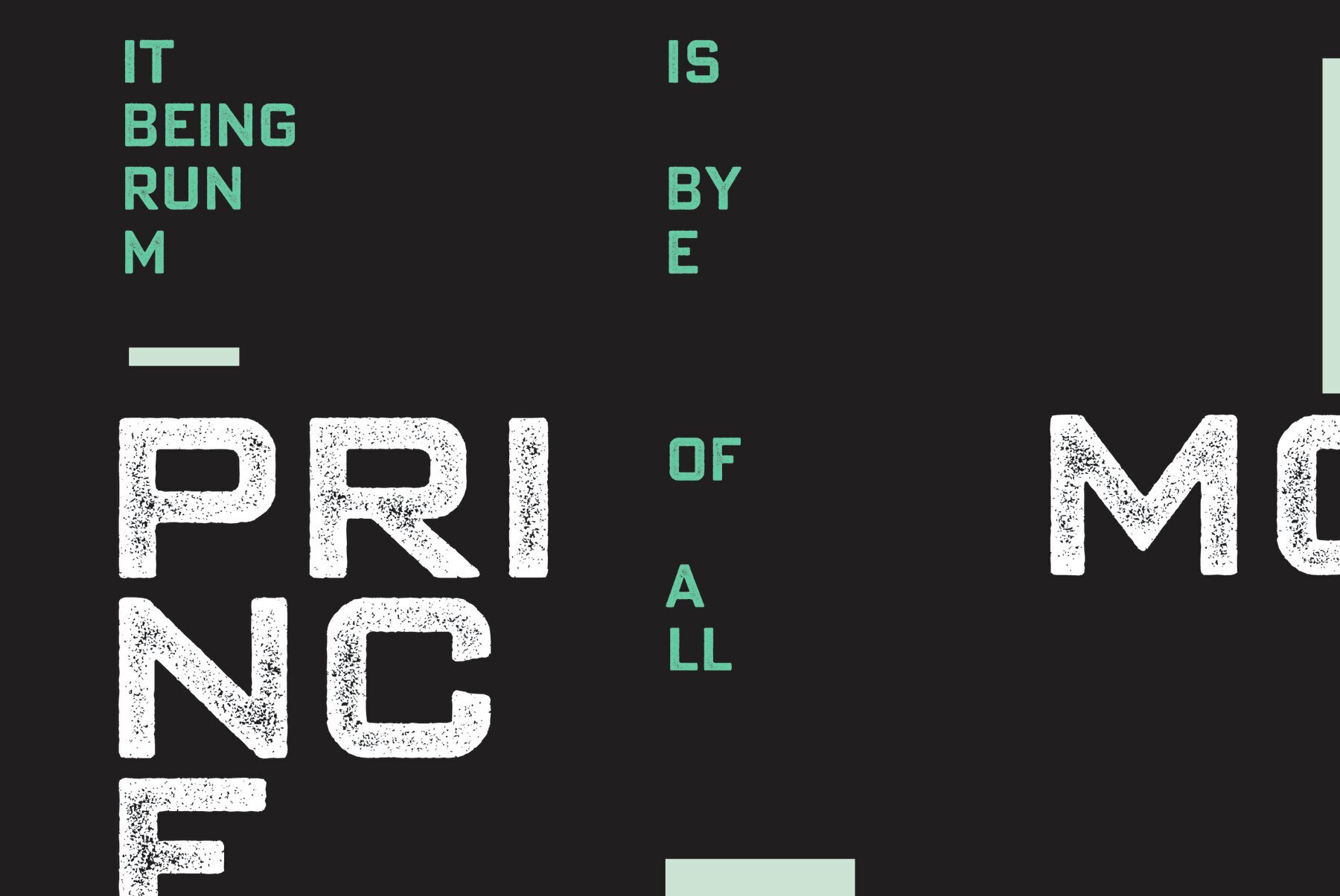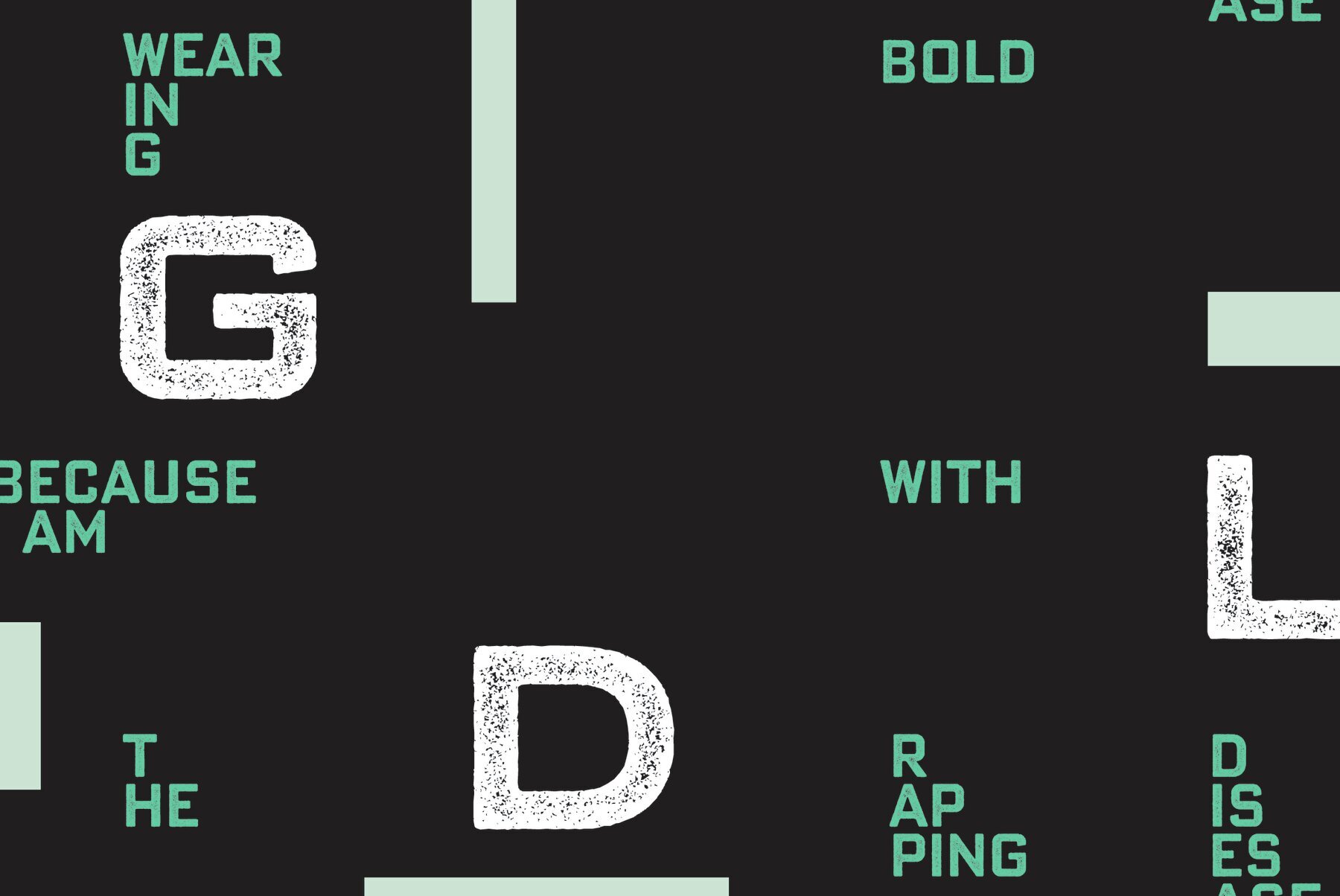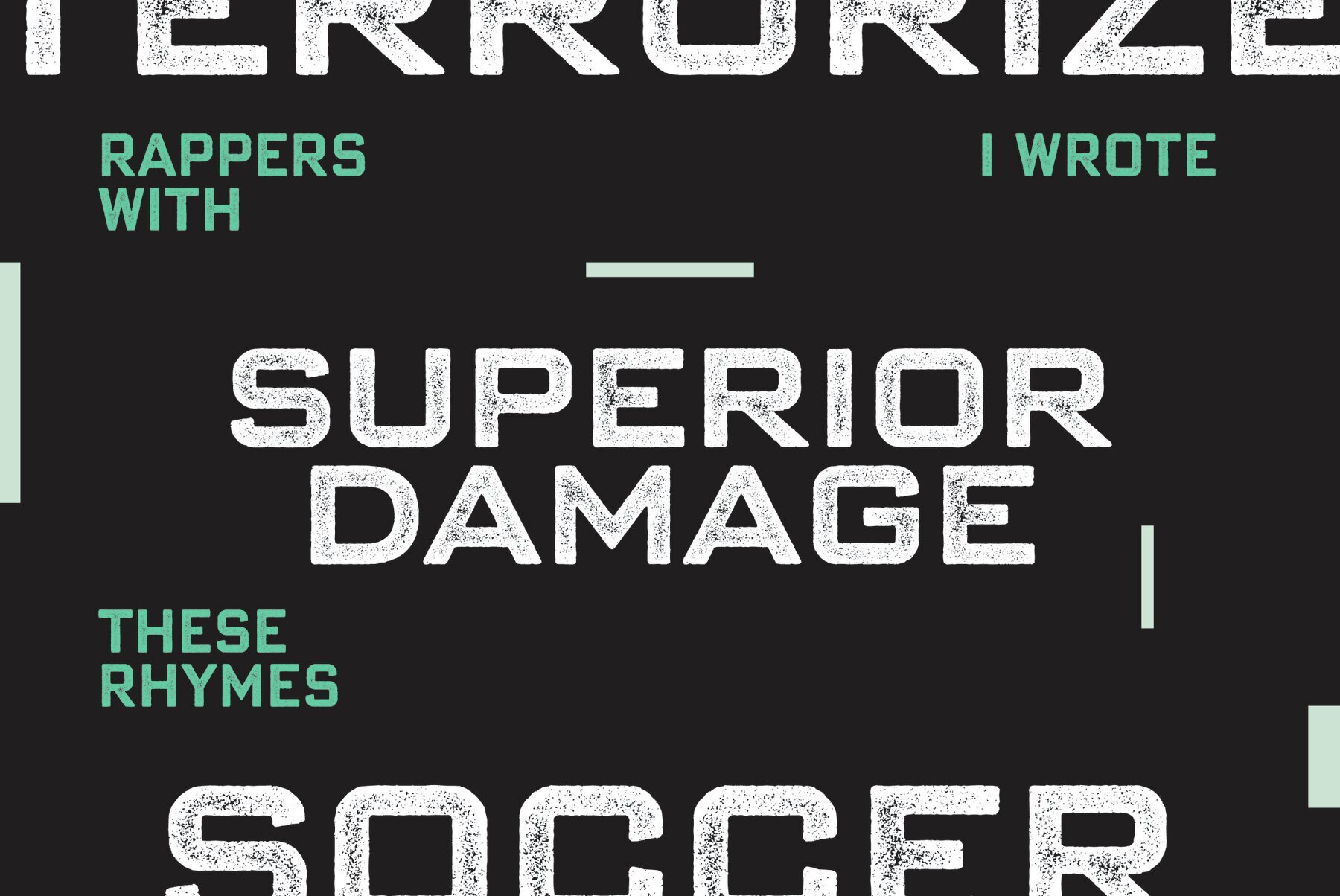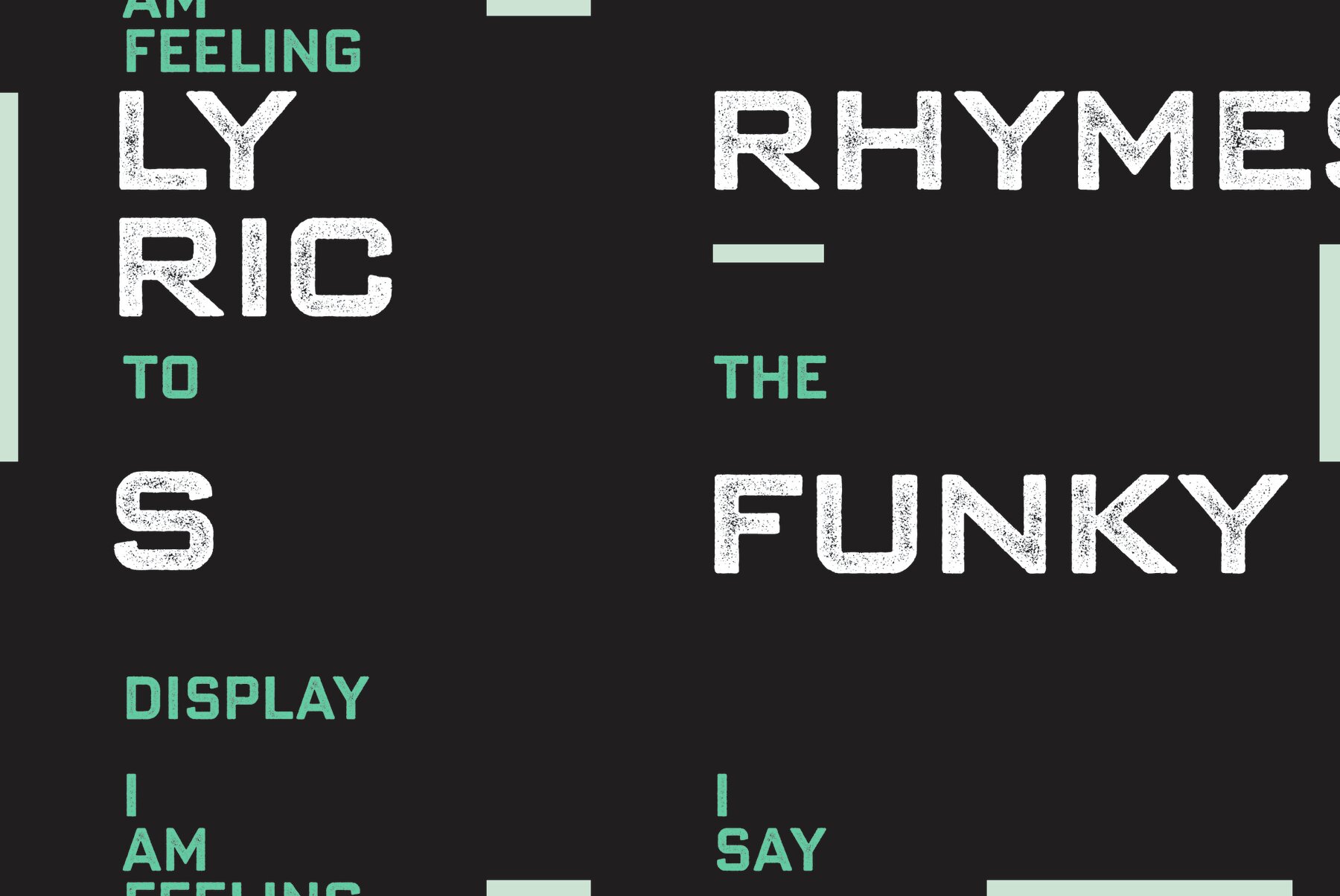
Bank Gothic Pro Distressed Font
Bank Gothic® Distressed (Bold and Bold Condensed) is the warn and weathered version of GroupType's Bank Gothic® with an antiqued texture that captures the authentic qualities of letterpress printing. Because it’s remarkably detailed, it looks great set at large sizes. Each font includes caps, lower case, small caps and a full set of alternate characters.